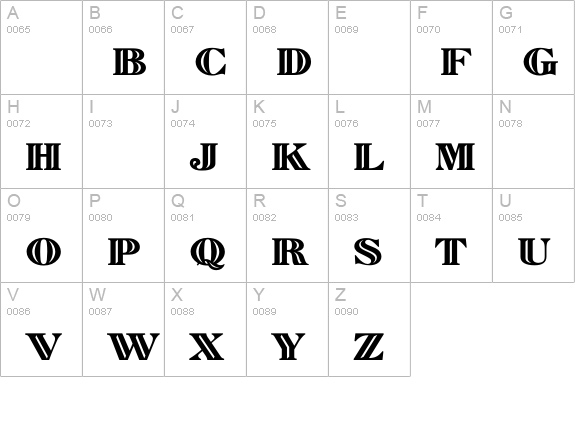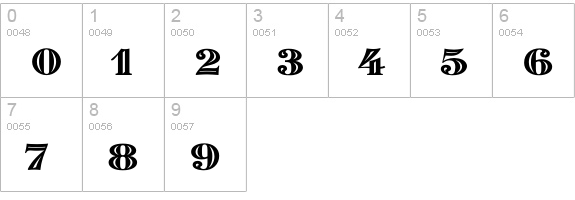
SphinxInline is a modern and elegant font that is perfect for adding a touch of sophistication to your designs. With its refined lines and subtle curves, this font exudes a sense of style and professionalism. What sets SphinxInline apart is that it is not only visually appealing, but also free to use. Whether you are a graphic designer, web developer, or simply someone who appreciates beautiful typography, you can freely download SphinxInline at FontsMarket.com. This font offers versatility and flexibility, making it suitable for a wide range of design projects. From branding and logo design to website headers and social media graphics, SphinxInline adds a touch of class to any visual creation. The clean and legible letterforms of SphinxInline ensure readability in both print and digital mediums. Its balanced proportions and carefully crafted curves make it a pleasure to read, while still maintaining a sense of uniqueness and individuality. Whether you are looking to create elegant invitations, eye-catching posters, or captivating advertisements, SphinxInline is the perfect typeface to add a touch of sophistication to your designs. And with the added bonus of being freely available at FontsMarket.com, you can easily enhance your creative projects without breaking the bank. So why wait? Download SphinxInline today and elevate your designs to new heights with this versatile and stylish font.